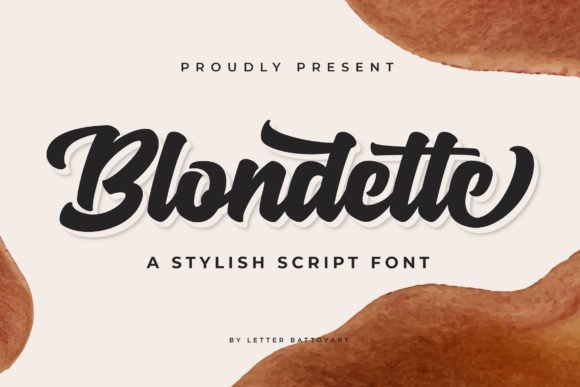
Introduction to Blondette Font
Blondette is a gorgeous and bold handwritten font, crafted to give your headlines and logotype projects a retro touch.